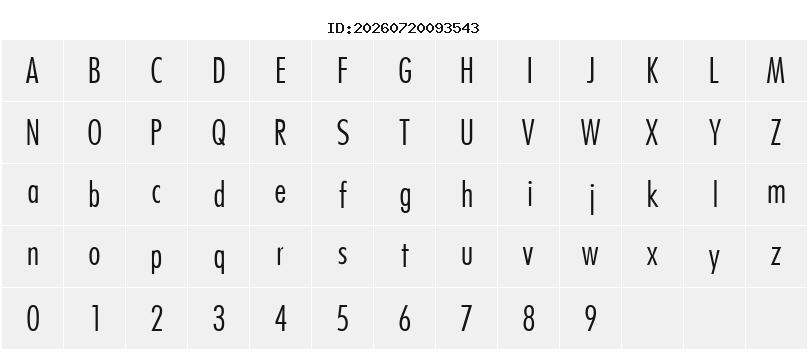
About Futura.ttf
Futura.ttf is a modern, elegant sans-serif font designed for ultimate readability and visual harmony. Perfect for branding, headlines, web design, and print materials.